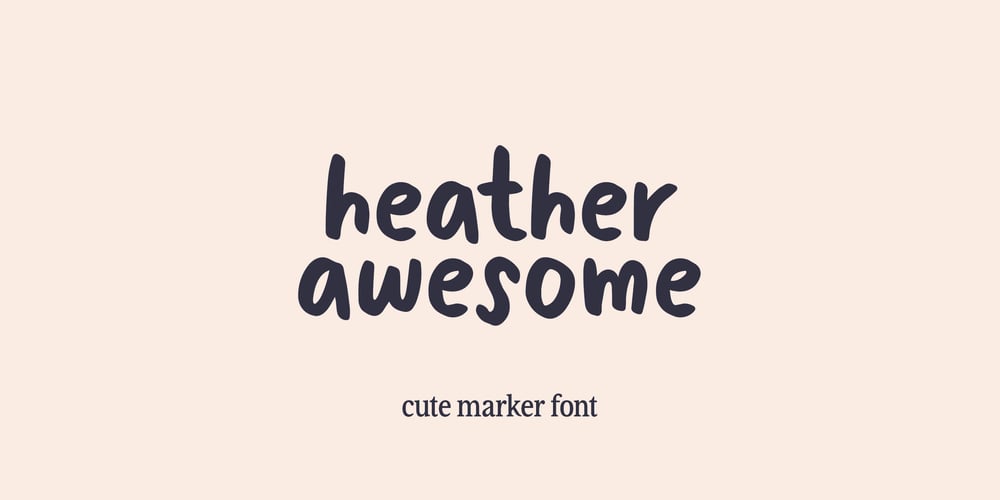
Awesome Heather Font Family was designed by Dmitrii Chirkov and published by Supfonts. Awesome Heather contains 1 styles and family package options. Awesome Heather is a casual handwritten font. Perfect for greeting cards, wedding stationery, photographer watermarks logos, modern websites, apparel design and more.Awesome Heather features handwritten ligatures, beginning and end swashes for lowercase letters and heart connections